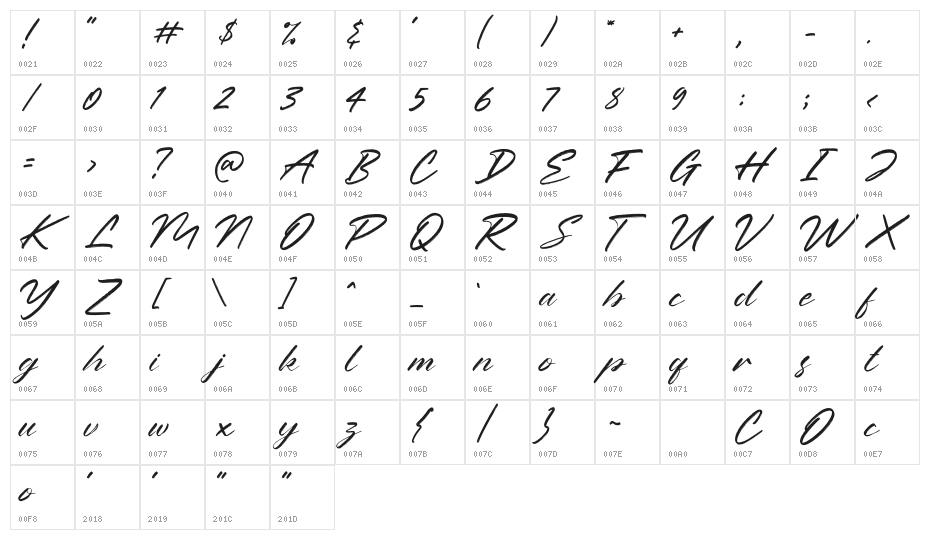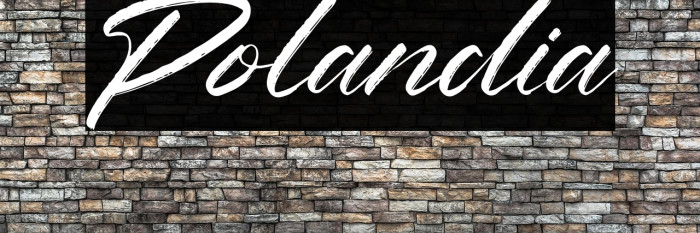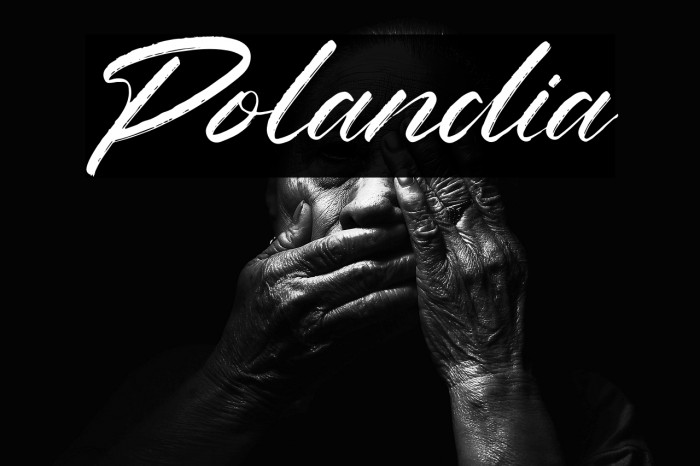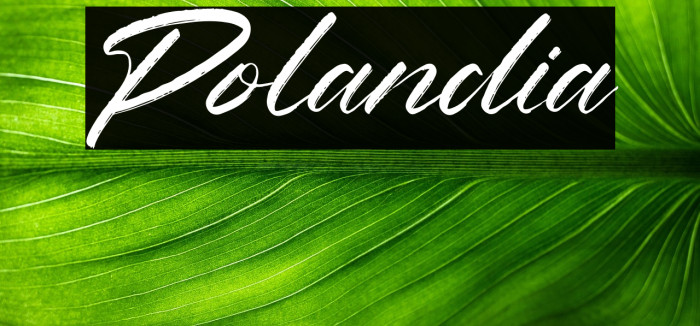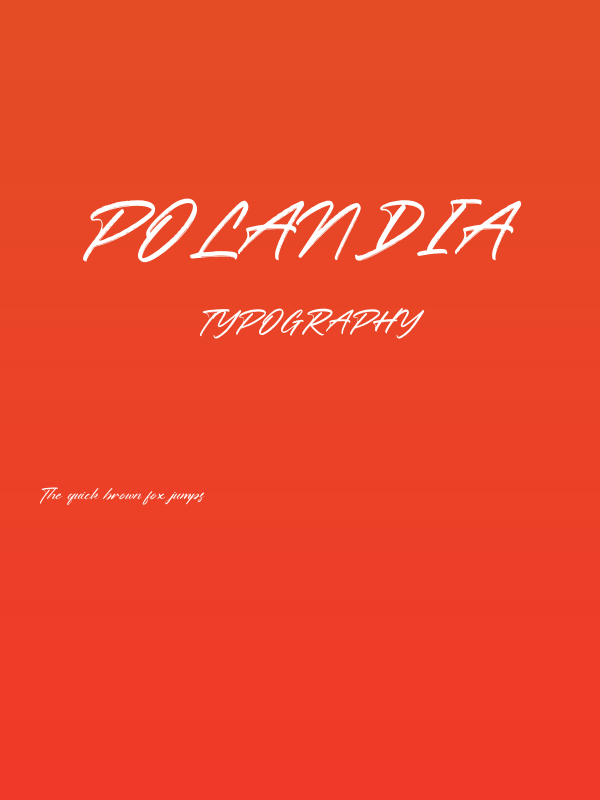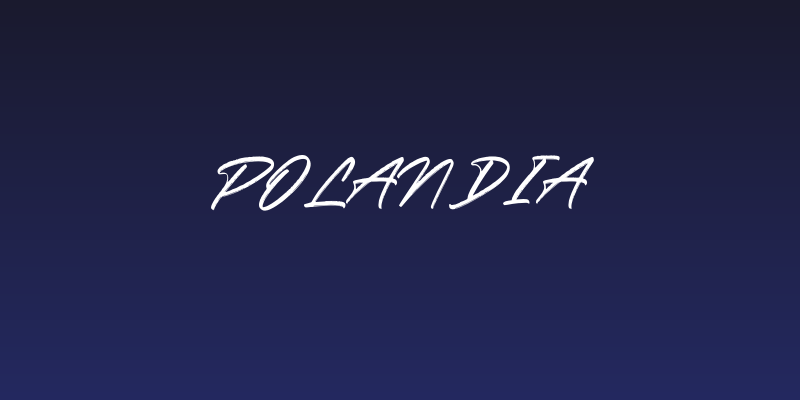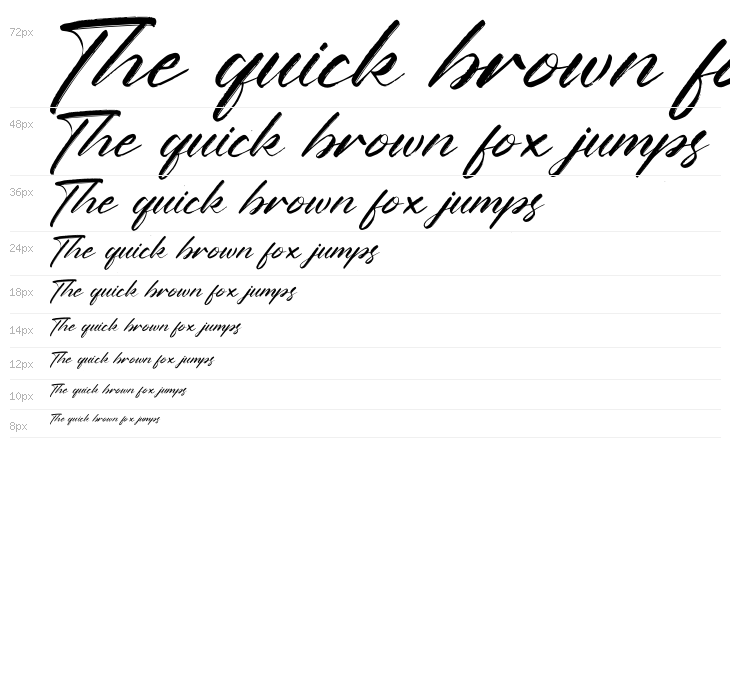
Polandia Font
Polandia Description
This font exhibits a dynamic and fluid script style, characterized by its elegant and flowing cursive letters. The uppercase letters are bold and slightly slanted, with distinctive loops and swashes that add a touch of sophistication. The lowercase letters maintain a consistent rhythm, with smooth connections between characters, enhancing the handwritten feel. The numerals are clear and well-proportioned, matching the overall aesthetic of the alphabet. Special characters are creatively designed, maintaining the script's artistic flair. This font is perfect for projects that require a personal and elegant touch, such as invitations, branding, and decorative designs.